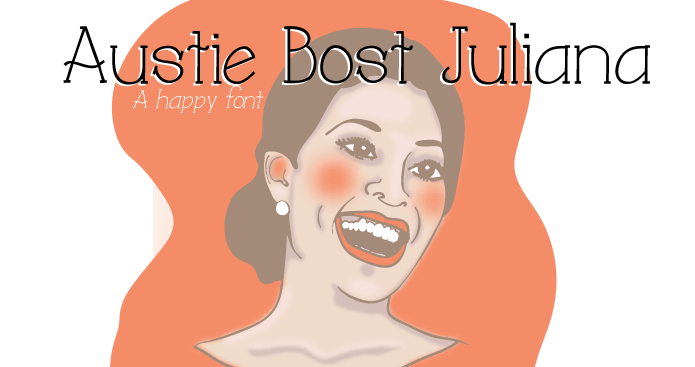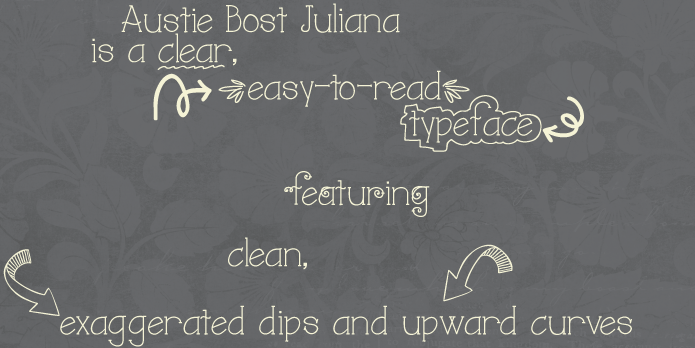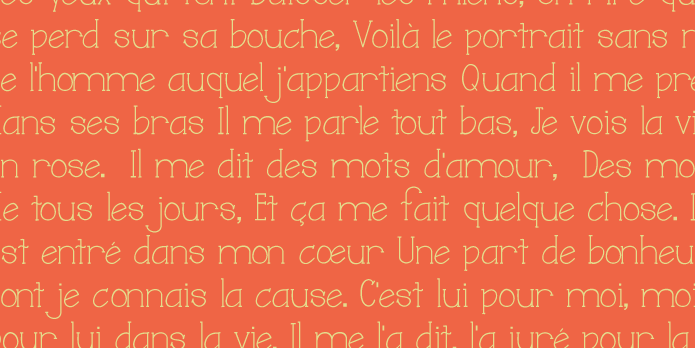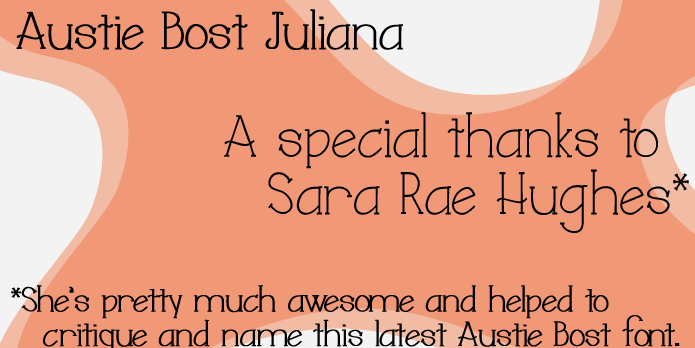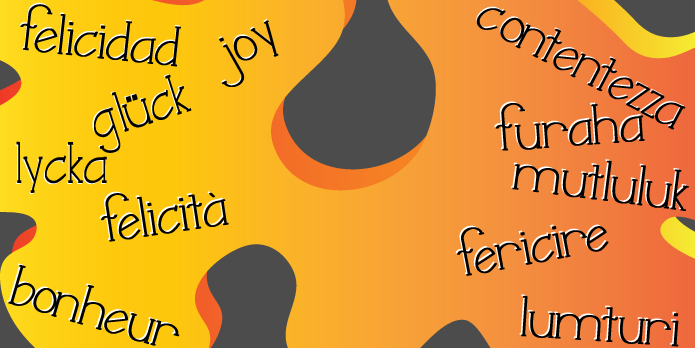
Designed by Austin Owens, Austie Bost Juliana is a hand drawn font published by Austie Bost Fonts.
Austie Bost Juliana is a balanced design, but with fun letter tilts. It’s a little bit old-fashioned, and a little bit modern.